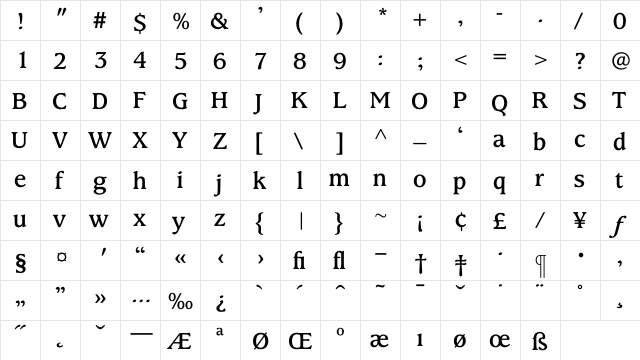
KingsrowMedium Regular
Design Context for KingsrowMedium Typeface
KingsrowMedium offers clean, dependable letterforms without strong stylistic allegiance, making it a practical choice for designers who need flexibility.
Pro Tip: Use KingsrowMedium in both headline and body roles to test its range before committing to a single application.